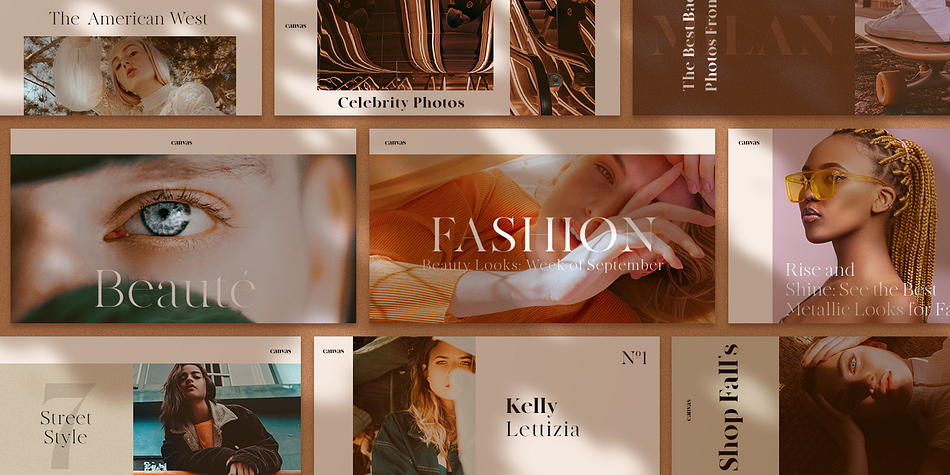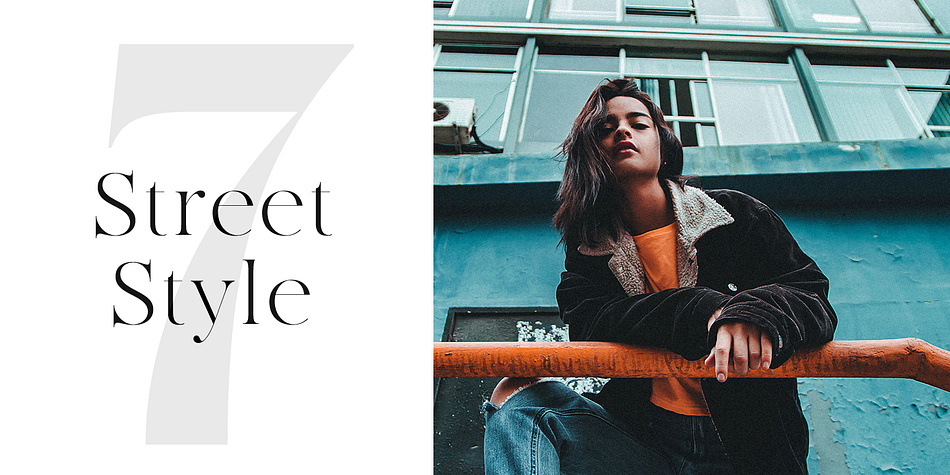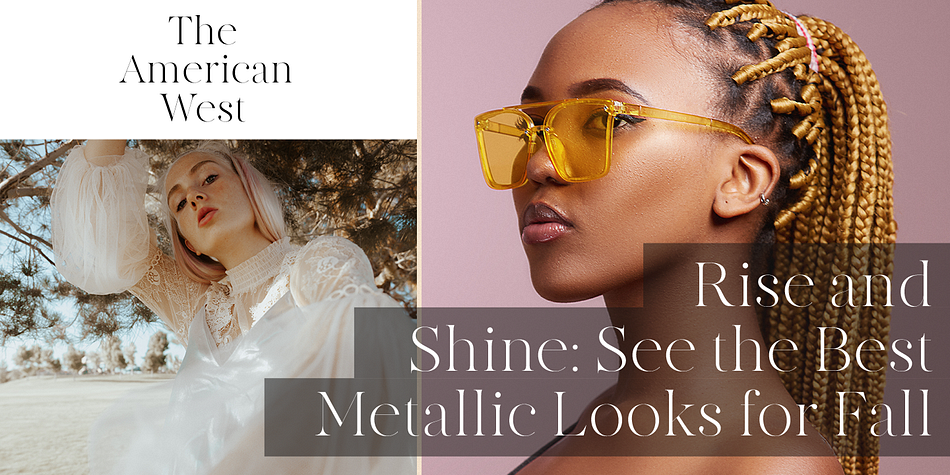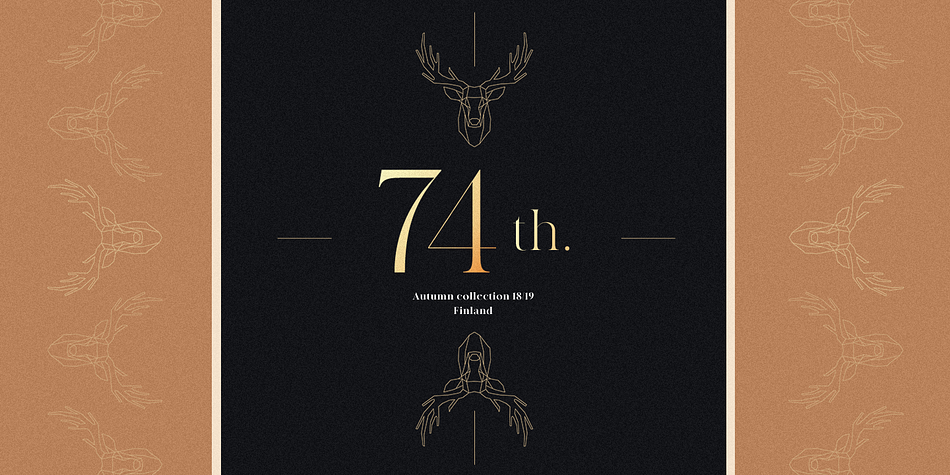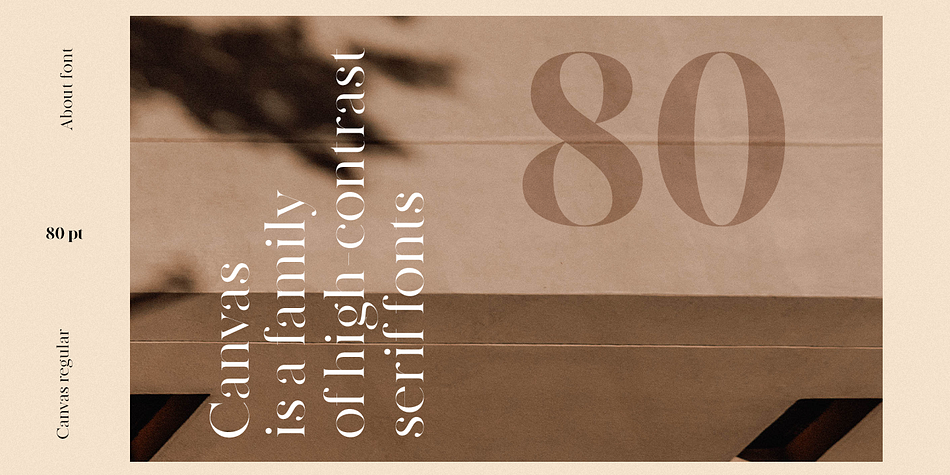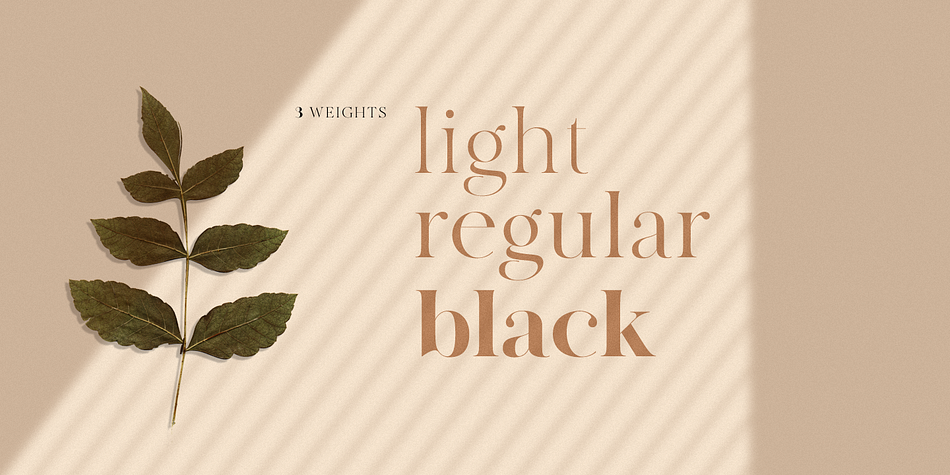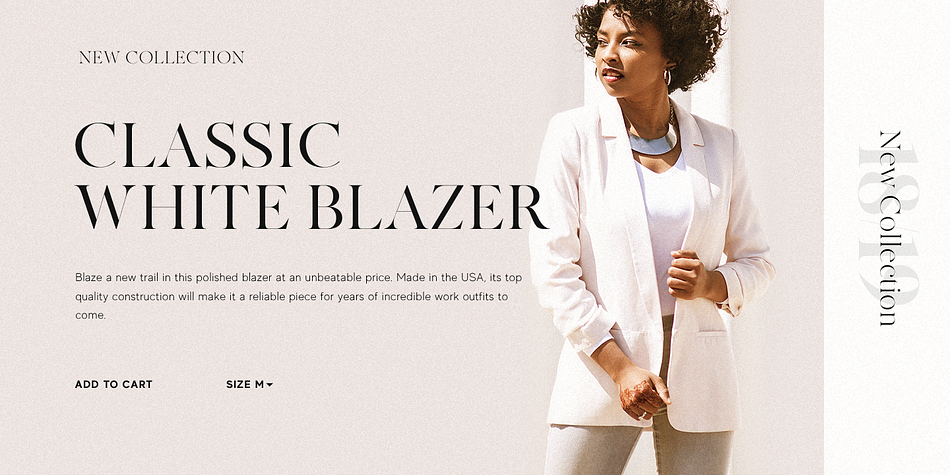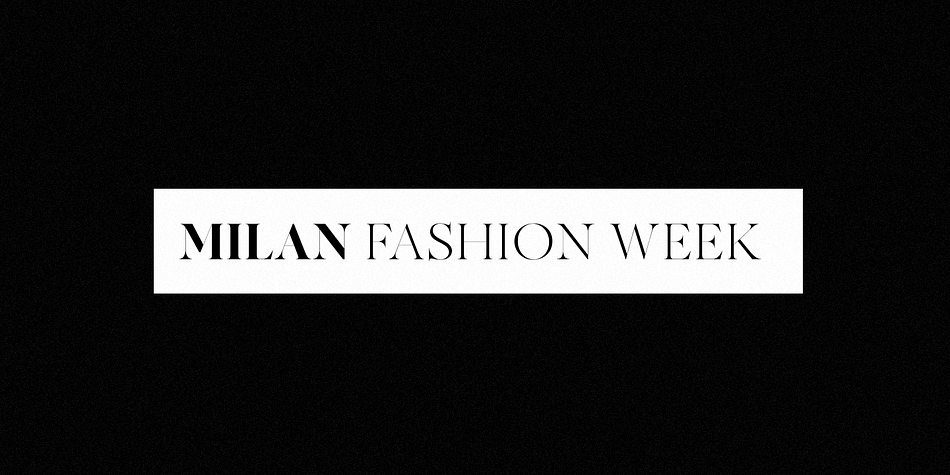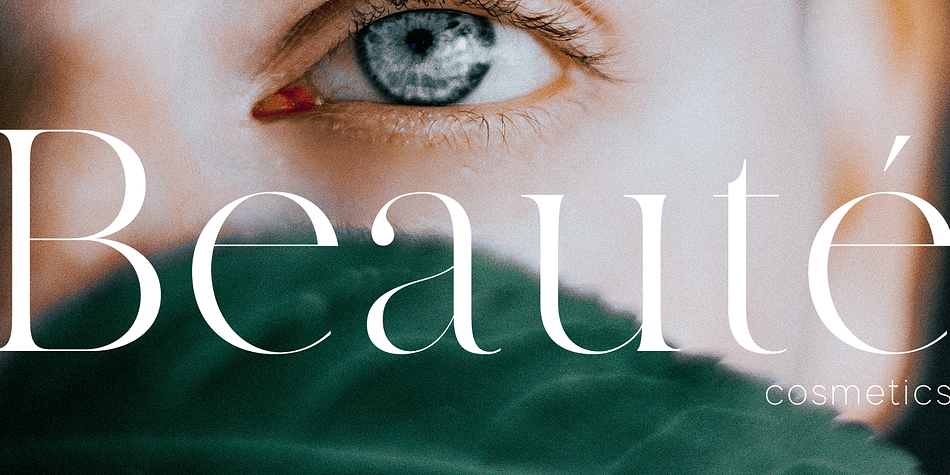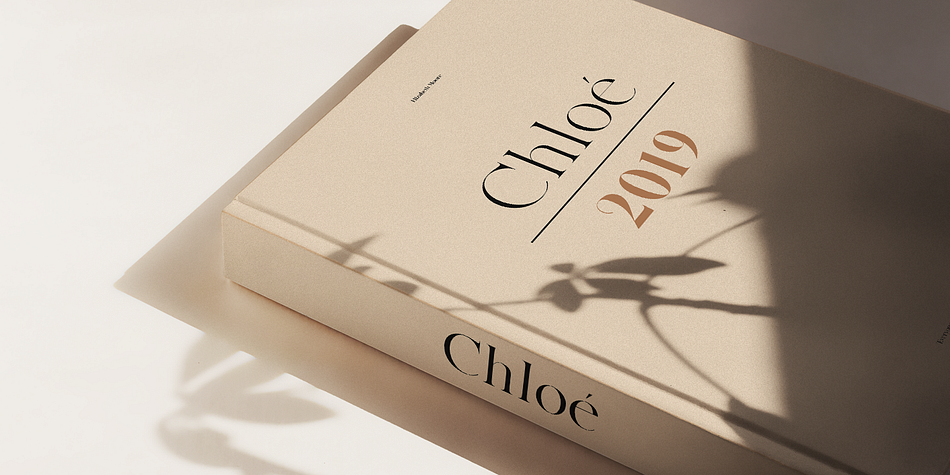
Designed by Maxim Schepin and Denis Schepin, MADE Canvas is a display serif font family. This typeface has three styles and was published by MadeType.
MADE Canvas is a family of high-contrast serif fonts. Canvas is a modern style “Didoni”. The typefamily includes 3 weights - Light, Regular and Black. The hairlines in all of the fonts are very thin.
The Canvas will perfect for many project: fashion, magazines, logo, branding, photography, wedding invitations, quotes, blog header, poster, advertisements, etc.